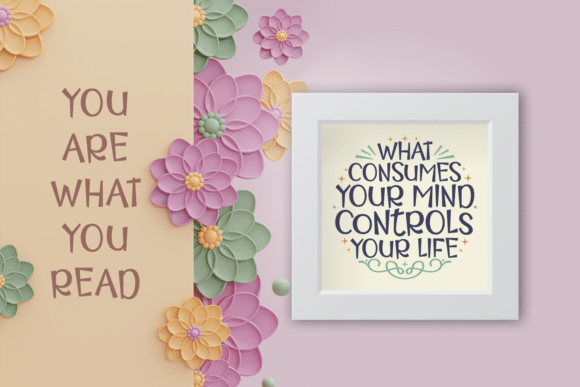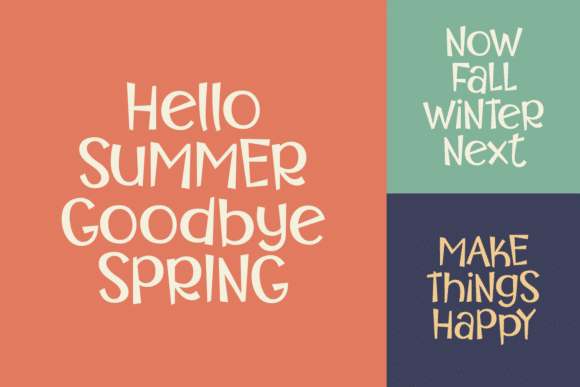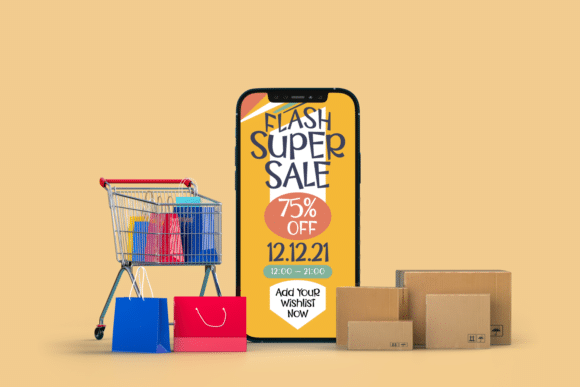
Read Right Font
Read Right is a cute and simple lettered display font that you can use for all chalkboard quotes or teaching material! Its authentic look will add a personal and realistic feel to your designs.